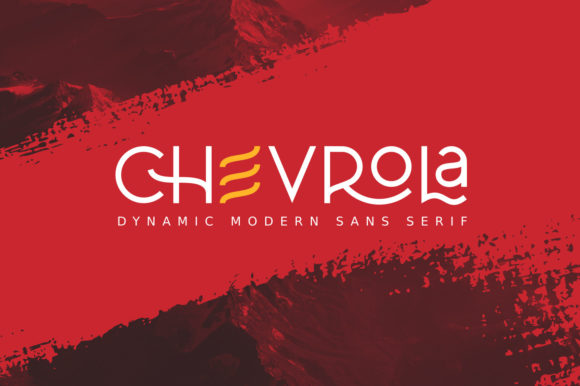
Introducing AL Chevrola Font: A Dynamic Modern Sans Serif Marvel
In the realm of typography, fonts play a crucial role in shaping the visual identity of a brand, product, or creative project. With the ever-evolving landscape of design, the demand for unique, versatile, and impactful fonts has never been higher. It is in this context that AL Chevrola Font emerges as a game-changer, offering a perfect blend of modernity, elegance, and strength. Described as a dynamic modern sans serif font, Chevrola is making waves in the design community for its exceptional qualities.
What is AL Chevrola Font?
AL Chevrola Font is categorized under the sans serif font family, which is known for its clean and straightforward appearance. However, what sets Chevrola apart is its dynamic and modern twist. Itβs not just another sans serif font; itβs an extremely strong font that manages to exude elegance and a natural flow, characteristics that are often hard to achieve with sans serif fonts.
The Strength of Elegance and Curves
One of the standout features of Chevrola is its unique combination of strength and elegance. Typically, fonts that are strong and bold may lack the finesse and grace that elegance demands. Conversely, fonts that are elegant often may not possess the required strength to make a lasting impact. Chevrola, however, strikes a perfect balance. Its boldness is not just about being strong; itβs about making a statement while maintaining a certain level of sophistication.
The naturally flowing curves in Chevrola add to its elegance. These curves are not just aesthetically pleasing; they contribute to the font’s readability and versatility. Whether it’s used for headlines, body text, or any other design element, Chevrola ensures that the text is not only visually appealing but also easy to read and understand.
Versatility and Usage
The versatility of AL Chevrola Font is one of its most significant advantages. Its dynamic and modern design makes it suitable for a wide range of applications. Here are a few areas where Chevrola can make a significant impact:
- Branding: For businesses looking to create a strong and modern brand identity, Chevrola can be a perfect choice. Its unique blend of strength and elegance can help a brand stand out.
- Advertising: In advertising, capturing the audience’s attention is crucial. Chevrola’s bold and dynamic appearance makes it an excellent choice for headlines and titles that need to grab attention.
- Web Design: For web designers, typography is a critical element. Chevrola can be used for both headings and body text, providing a consistent and professional look to websites.
- Print Design: Whether it’s brochures, posters, or business cards, Chevrola’s versatility ensures it can be used across various print materials.
Why Choose AL Chevrola Font?
With so many fonts available today, what makes AL Chevrola Font a preferred choice for designers and brands? Here are a few reasons:
- Uniqueness: In a sea of similar fonts, Chevrola stands out with its unique combination of strength, elegance, and flowing curves.
- Readability: Despite its boldness, Chevrola maintains high readability, making it suitable for both digital and print media.
- Modern Appeal: Its modern design ensures that any project using Chevrola looks contemporary and up-to-date.
- Versatility: As mentioned earlier, Chevrola’s adaptability across various platforms and design materials makes it a valuable asset for any designer or brand.
How to Use AL Chevrola Font Effectively
To make the most out of AL Chevrola Font, here are a few tips:
- Pair it with Complementary Fonts: While Chevrola is versatile on its own, pairing it with complementary fonts can enhance its appeal. Choose fonts that complement its modern and elegant vibe.
- Use it for Headlines and Subheadings: Its bold and dynamic nature makes it perfect for headlines and subheadings. For body text, consider using a font that is clear and easy to read.
- Experiment with Colors: Chevrola looks great in various colors. Experiment with different colors to find the one that best suits your design.
AL Chevrola Font is more than just a font; itβs a design statement. Its dynamic modern sans serif design, combined with its strength and elegant curves, makes it a valuable tool for designers and brands looking to make an impact. Whether you’re working on a branding project, advertising campaign, or simply looking to refresh your website’s typography, Chevrola is definitely worth considering. With its versatility, readability, and modern appeal, it’s poised to become a favorite among designers and brands alike.